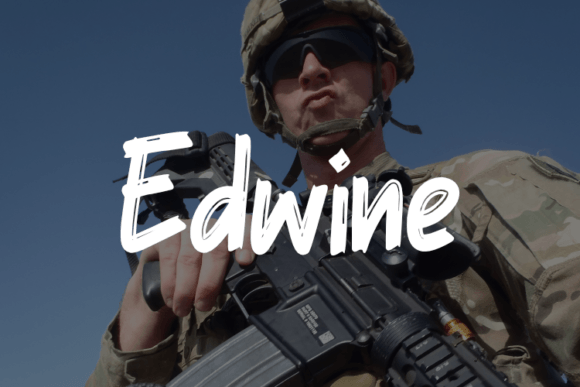
Unleashing Creativity with Edwine Font: Elevate Your Designs to Statement Pieces
In the realm of design, fonts play a pivotal role in transforming ordinary visuals into extraordinary statements. Among the myriad of fonts available, Edwine stands out for its versatility, contemporary appeal, and seamless adaptability across various platforms. This article delves into the creative world of Edwine font, exploring its features, benefits, and applications, particularly in fashion design and personalizing apparel.
Discovering Edwine: A Font Beyond Boundaries
Edwine font is not just a typeface; it’s an experience. It’s designed to transcend conventional boundaries, effortlessly turning everyday items, such as t-shirts, into unique statement pieces. Whether you’re a professional in fashion design or a hobbyist looking to personalize your gear, Edwine offers a modern touch that elevates every creation.
A sample of Edwine font in use, showcasing its versatility and aesthetic appeal.
Engineered for Compatibility and Creativity
One of the standout features of Edwine font is its engineering for compatibility. It is designed to complement every design style, ensuring that it can be seamlessly integrated into various creative projects. Moreover, Edwine is compatible across all software platforms, making it a versatile tool for designers who work with different applications.
Key Features of Edwine Font:
- Versatility: Edwine can be used across a wide range of design projects, from fashion and apparel to digital media and branding.
- Contemporary Appeal: Its modern design ensures that any project it is used in looks current and stylish.
- Cross-Platform Compatibility: Edwine can be used in any software platform, making it incredibly convenient for designers.
- Design Flexibility: It offers delightful flexibility, allowing designers to experiment with various styles and effects.
Applications of Edwine Font in Fashion Design and Beyond
Edwine font finds extensive application in fashion design, particularly in creating personalized and bespoke apparel. Designers can use Edwine to add a contemporary and stylish touch to t-shirts, hoodies, and other clothing items. Its versatility also extends to digital media, where it can be used in graphic designs, branding, and advertising materials.
Real-World Example: Transforming T-Shirts with Edwine
Consider a scenario where you’re a fashion designer looking to create a unique line of t-shirts. By incorporating Edwine font into your designs, you can instantly elevate the visual appeal of your products. The modern and stylish look of Edwine can turn simple tees into statement pieces that stand out in the market.
Edwine font represents a significant tool for designers looking to add a modern and stylish touch to their creations. Its versatility, compatibility, and aesthetic appeal make it an ideal choice for transforming everyday items into statement pieces. Whether you’re in fashion design or simply looking to personalize your gear, Edwine offers the flexibility and creative freedom to bring your visions to life.